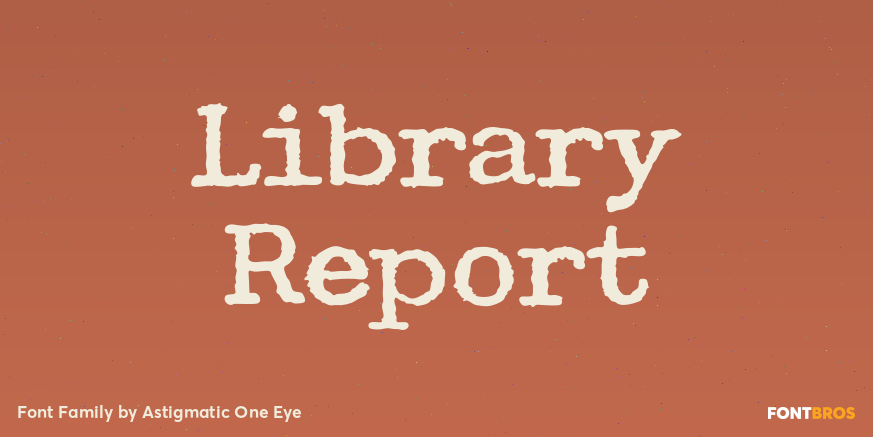
HomeFont BrosDistressedLibrary Report DistressedSerifHistorical Library Report FacebookXPinterestWhatsApp 1 of 1 About Library Report A typeface made from vintage typewriter samples and meticulously compiled into a complete character set.  DOWNLOAD NOW People also explored Signature Font Chameleon Font Handletters Font Engrave Font Many Loves Font Francella Font Surprise Party Trio Font Unique Cartoon Font Kosakatta Font 215 0 TagsLibrary Report Font Previous articlePermanent Marker ProNext articleCandu LEAVE A REPLY Cancel reply Comment: Please enter your comment! Name:* Please enter your name here Email:* You have entered an incorrect email address! Please enter your email address here Website: Save my name, email, and website in this browser for the next time I comment. Personal Use Free Happy Santa Personal Use Free Read more about this font Green Fuz Personal Use Free Read more about this font Unicorn Kids Personal Use Free Read more about this font Laneway Personal Use Free Read more about this font BLOG How to Cut Any Font on Cricut: Convert a Font to SVG (Free) Turn any font into a clean SVG so it cuts crisp on Cricut - a quick 3-step workflow using a free font-to-SVG tool. Free vs Paid Fonts: Why Investing in Premium Fonts Is Worth It Free Fonts Risk: Why Free Fonts Can Be Dangerous for Designers Using Fonts in Digital Marketing: Tips to Strengthen Your Brand Identity